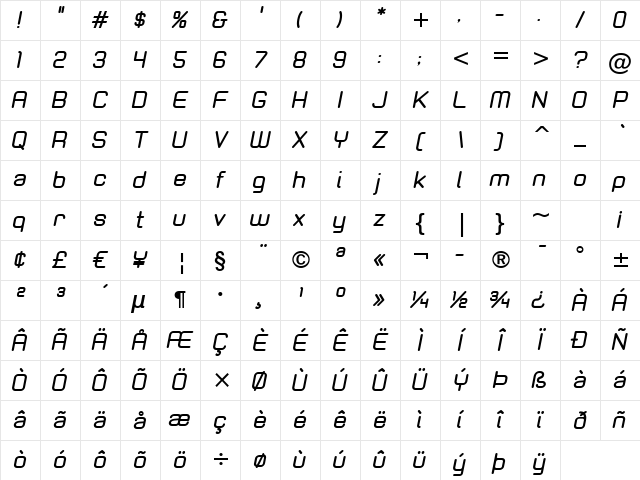
Zolano Sans BTN BoldOblique
Style: BoldOblique
Complete Zolano Sans BTN BoldOblique glyph index. Displaying only characters natively supported by Zolano Sans BTN BoldOblique font.
Design Context for Zolano Sans BTN
Zolano Sans BTN is a composed and adaptable typeface that performs quietly and consistently across a wide range of design contexts. The slanted form adds forward momentum and visual energy. Its bold stroke weight gives it real presence on the page.